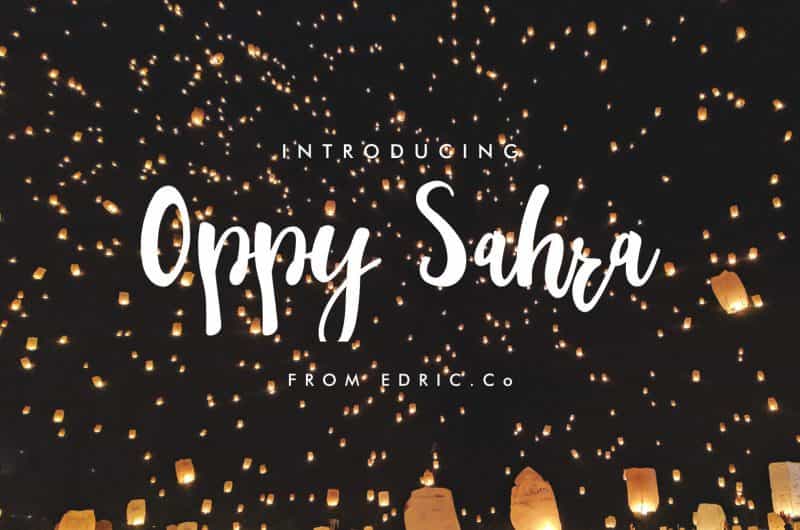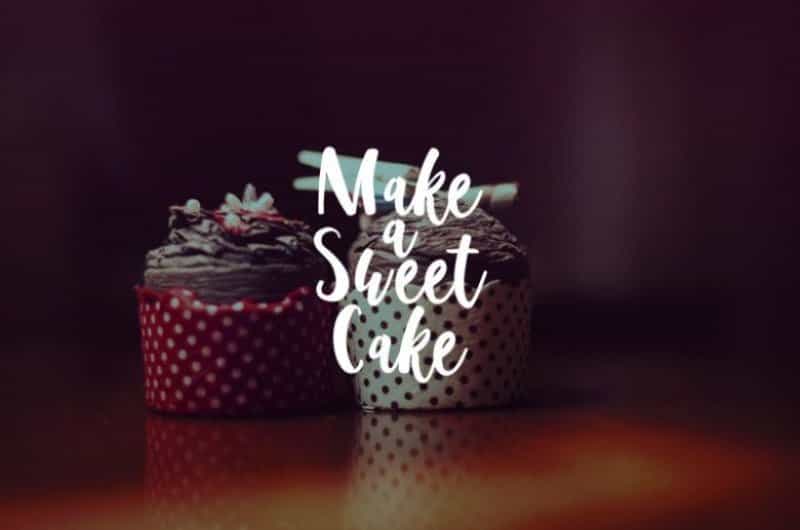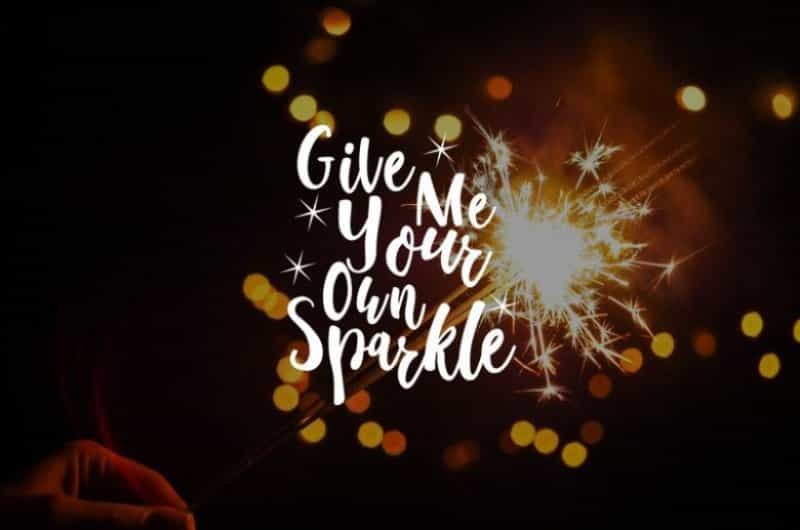
Discover Oppy Sahra Script Font, part of the Brush Handwritten collection—a versatile and unique font perfect for adding a personal touch to your projects. Download it for free and enjoy crafting designs with style, from invitations to social media posts. This font is available exclusively for personal use, giving you the freedom to create without limits. Unlock your creativity with Oppy Sahra Script Font today!
Hey Man! This is us again. It is now the time for “Oppy Sahra” to be on stage It is a Hand Lettering Font, with its own style and handwriting. It is not just a signature, but it is the best font for logo, brand, poster, mural flyer invitation signage etc.